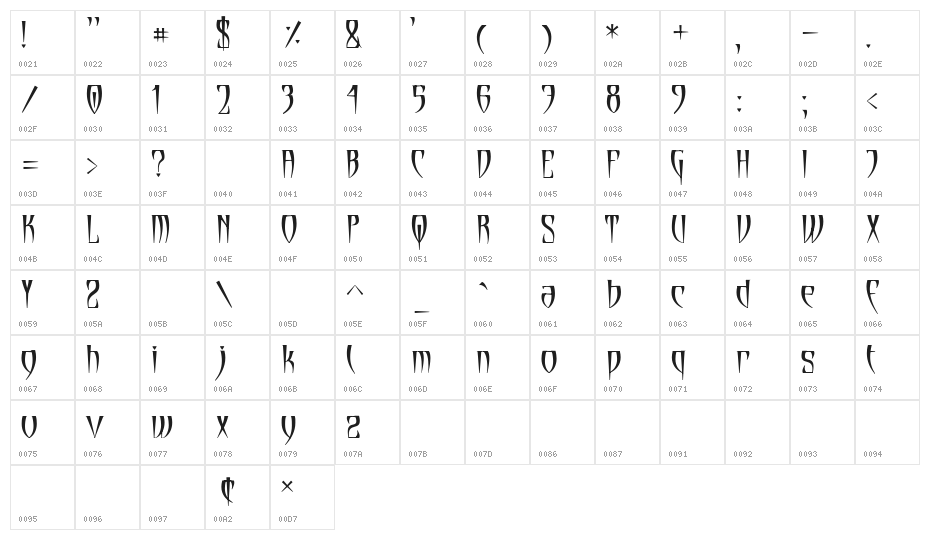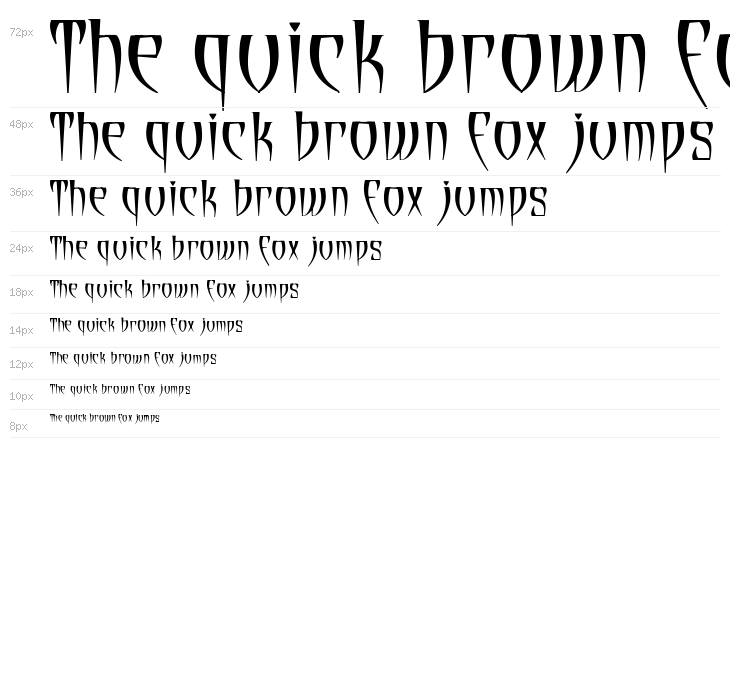
Cryptik Font
Cryptik Description
This font features a unique and striking design with elongated, sharp serifs and a gothic-inspired aesthetic. The characters are tall and narrow, with a high contrast between thick and thin strokes, giving it a dramatic and edgy appearance. The uppercase letters have a distinct angularity, while the lowercase letters maintain a consistent style with slightly softer curves. The numbers and special characters follow the same design principles, ensuring a cohesive look across all glyphs. This font's bold and artistic style makes it ideal for projects that require a strong visual impact.
| Proposed Projects | Ideal for album covers, posters, branding for edgy or alternative products, and any design needing a bold statement. |